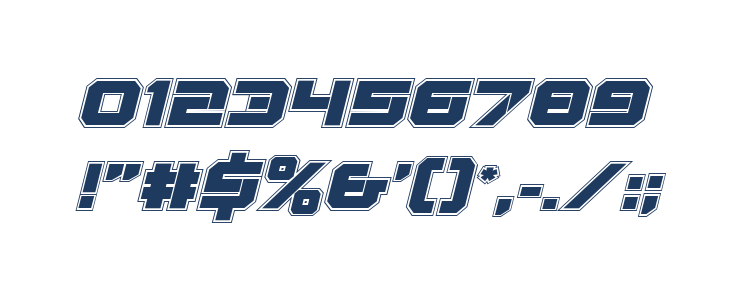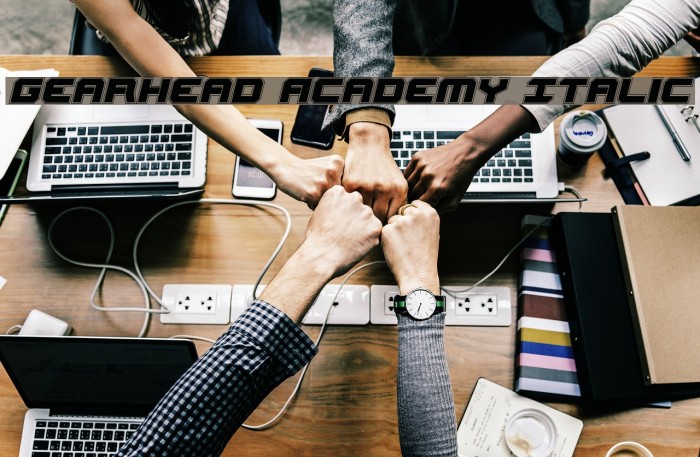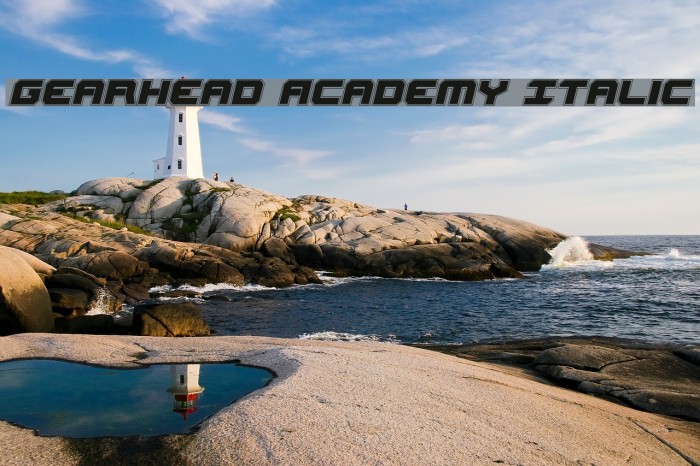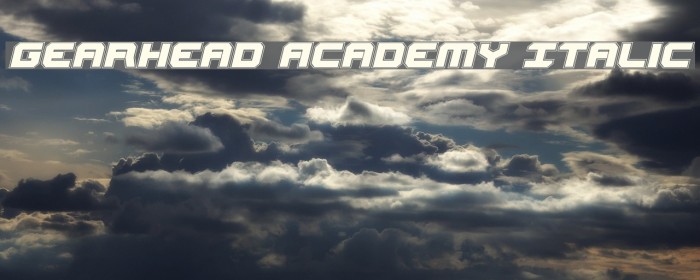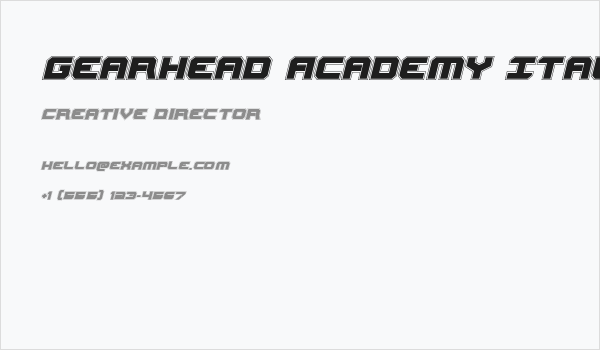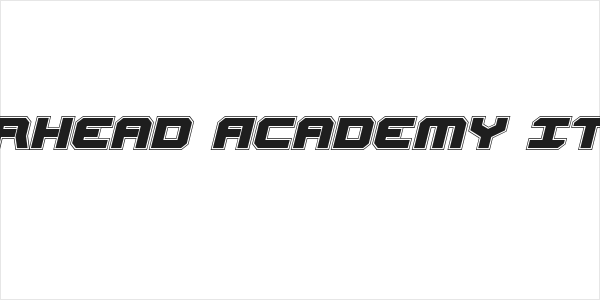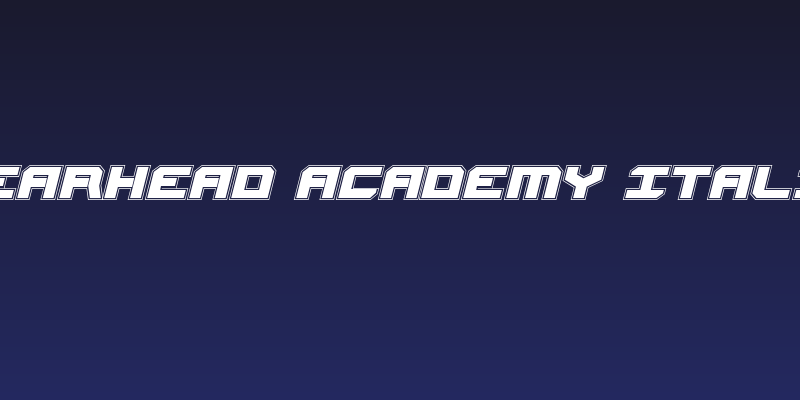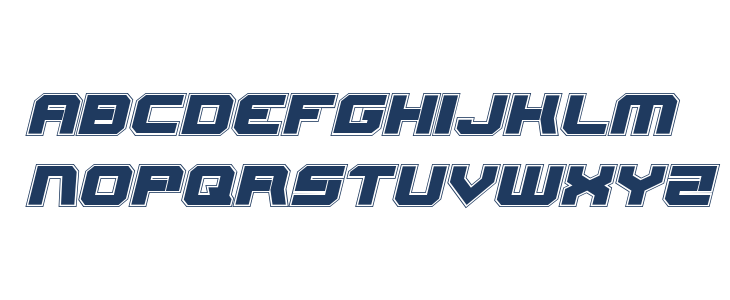
Gearhead Academy Italic Font
Gearhead Academy Italic Description
This font features a bold, italicized style with a futuristic and mechanical aesthetic. The characters are outlined with a thick border, giving them a three-dimensional appearance. The angular design and sharp edges convey a sense of speed and precision, making it ideal for projects that require a modern and dynamic look. The uppercase and lowercase letters maintain a consistent style, while the numerals and special characters complement the overall design. The font's unique structure makes it stand out, perfect for attention-grabbing headlines or logos.
Proposed ProjectsIdeal for technology branding, automotive logos, video game titles, and sports team merchandise.